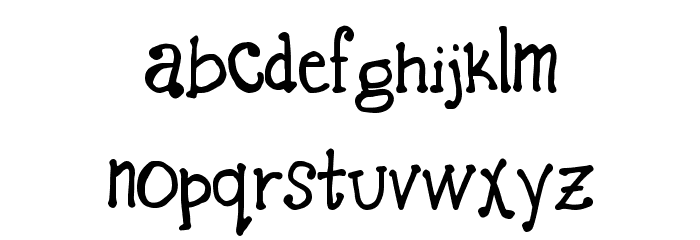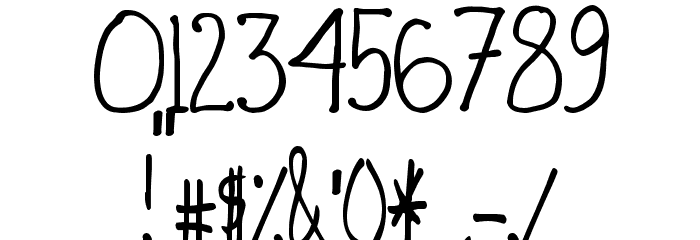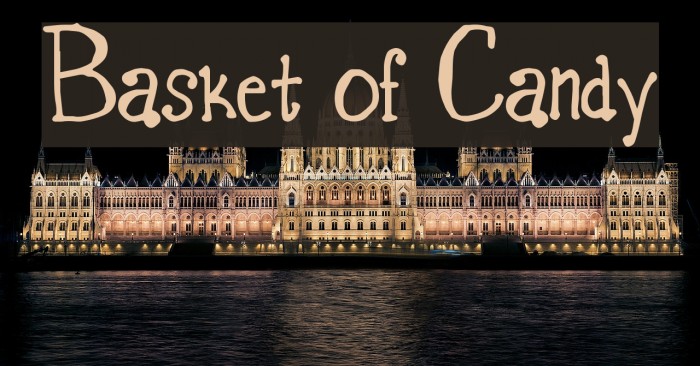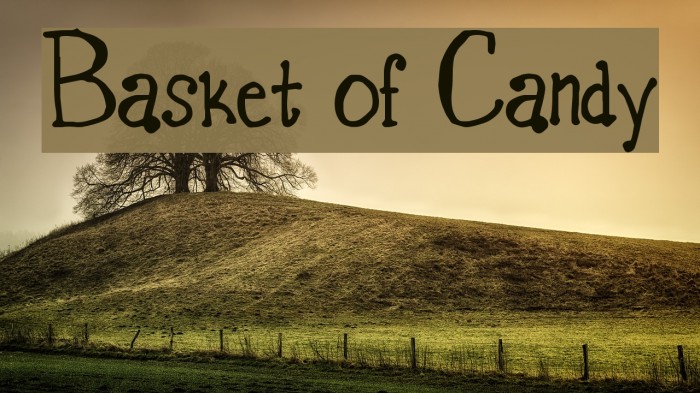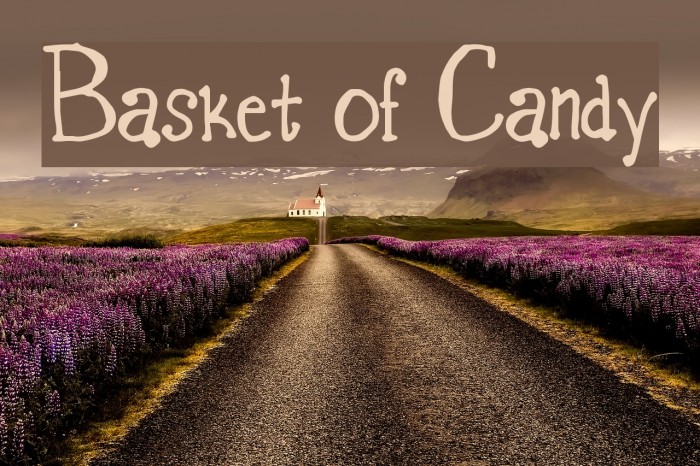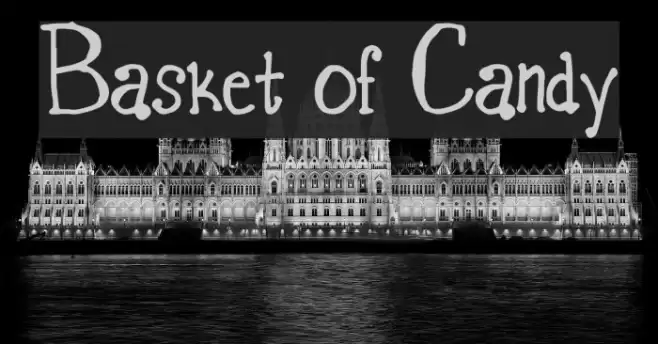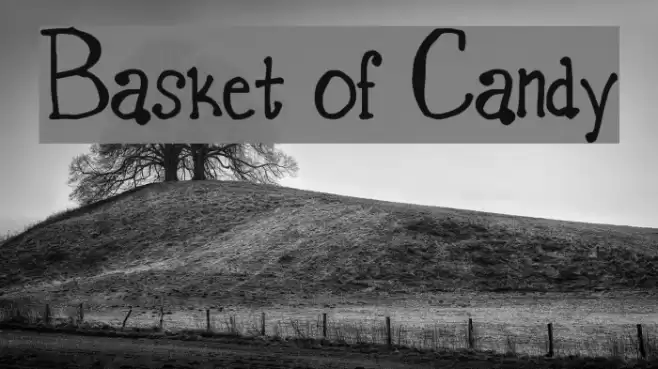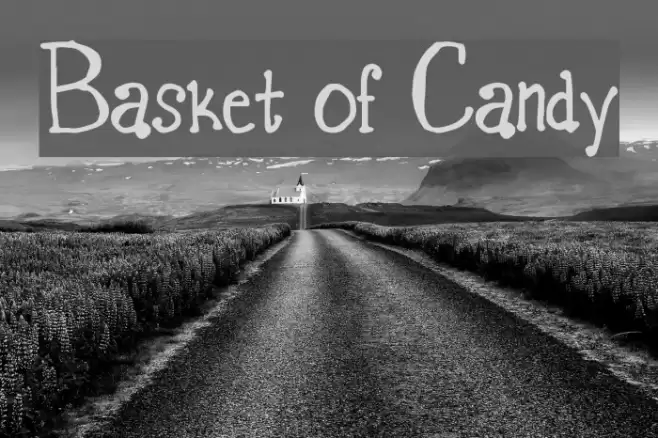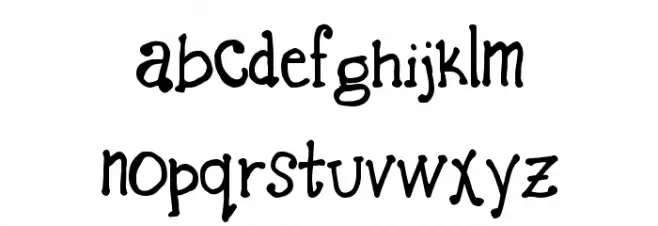
Basket of Candy Font
This playful and whimsical font features a hand-drawn style with irregular strokes and a casual appearance. The uppercase letters are bold and slightly uneven, giving them a lively and dynamic feel. The lowercase letters maintain a consistent style with a touch of quirkiness, adding to the font's charm. Numbers are rounded and maintain the same playful aesthetic, while special characters are creatively designed to match the overall theme. This font exudes a sense of fun and creativity, making it ideal for projects that require a lighthearted and informal touch.
A playful, hand-drawn font with a whimsical and casual style.
- Proposed Projects: Ideal for children's books, greeting cards, playful branding, and creative posters.